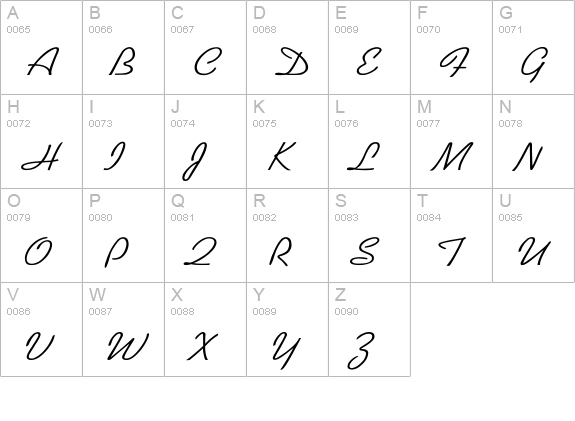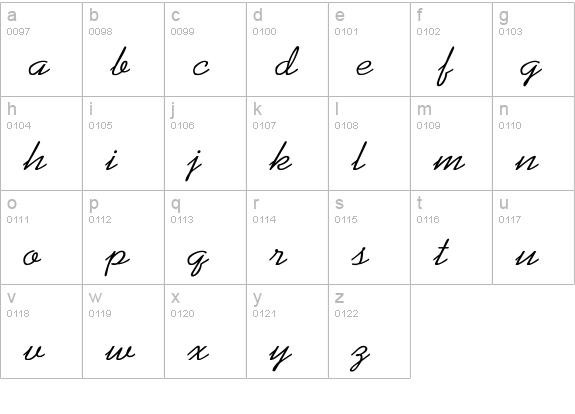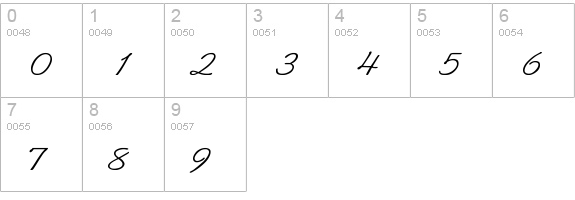
Koala Wd Font Details
Koala Wd font is a charming and whimsical typeface that exudes a sense of playfulness and creativity. Its rounded edges and unique letter shapes give it a friendly and inviting appearance, making it perfect for a wide range of design projects. Whether you're working on a children's book, a greeting card, or a branding campaign, Koala Wd font will add a touch of fun and personality to your work. What's even better is that Koala Wd font is available for free download at FontsMarket.com. You can easily access this delightful font and incorporate it into your designs without any cost. So why wait? Give your projects a fresh and lively look with Koala Wd font today!